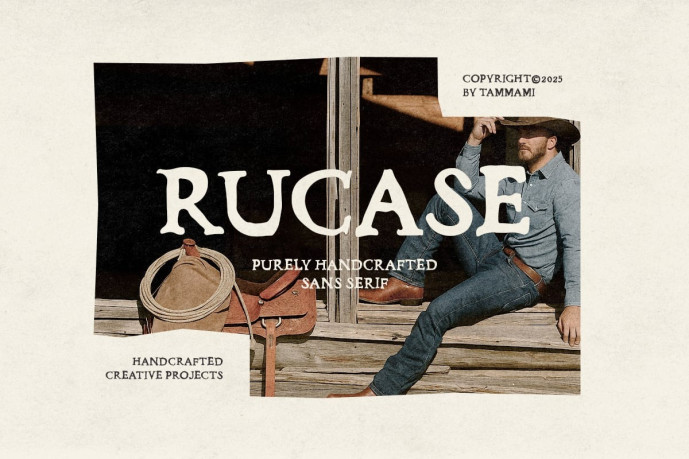
Rucase – Serif Crafted Font
Rucase – Serif Crafted Font inspired by human touch and artisanal craftsmanship. Its balanced strokes and graceful curves evoke a nostalgic charm, making it perfect for brands with a retro, vintage, or timeless aesthetic. Ideal for logos, packaging, posters, and editorial designs that blend classic warmth with handcrafted authenticity.